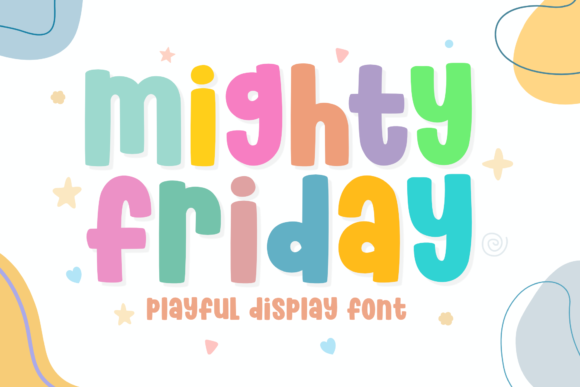
**Mighty Friday: The Font That Sparks Creativity and Playfulness in Design**
In a design world saturated with conventional fonts, Mighty Friday emerges as a breath of fresh air. A captivating display font overflowing with charm and fun, Mighty Friday promises to transform your designs into captivating masterpieces. Step into a realm of limitless imagination where type becomes art, and every letter dances with playful delight.
**Unleash Your Creativity with Mighty Friday:**
With Mighty Friday as your design companion, creativity flourishes like never before. Its whimsical charm and undeniable cuteness breathe life into logos, posters, invitations, and more. Let Mighty Friday be the beacon of joy and uniqueness that sets your designs apart, leaving an indelible mark on your audience's minds.
**Key Features:**
* **Display Font Extraordinaire:** Bask in the glory of Mighty Friday's display font prowess, designed to make your words shine like stars. Witness how it effortlessly elevates your designs, captivating attention and sparking intrigue with every stroke.
* **Cuteness Overload:** Experience the infectious charm of Mighty Friday's undeniably cute aesthetic. Its playful curves and cheerful demeanor infuse your designs with a delightful energy, adding a touch of magic to every project.
* **Perfect for Graphics:** Unleash your inner graphic designer and let Mighty Friday be your secret weapon. Its inherent compatibility with graphic design software ensures seamless integration and stunning results. Watch as your designs transform into captivating visuals that leave a lasting impression.
* **Endless Possibilities:** Whether you're crafting logos that exude personality, designing posters that leap off the page, or creating invitations that ignite curiosity, Mighty Friday proves to be an indispensable tool for a kaleidoscope of creative endeavors.
**Why Choose Mighty Friday?**
In a realm of ordinary fonts, Mighty Friday stands as a symbol of originality and flair. This display font is more than just a collection of letters; it's a gateway to a world where design dreams come true. Its boundless versatility and captivating charm make it the perfect choice for designers seeking to ignite creativity and craft truly extraordinary designs.
Embark on an artistic journey like no other with Mighty Friday at your fingertips. Let its enchanting aura infuse your designs with joy, playfulness, and a touch of magic. Witness the transformation as ordinary concepts evolve into captivating masterpieces, capturing hearts and igniting imaginations.
Mighty Friday is more than just a font; it's an experience that will revolutionize your design process. Embrace the creativity and playfulness that await you, and see your designs soar to new heights with Mighty Friday as your guiding force.